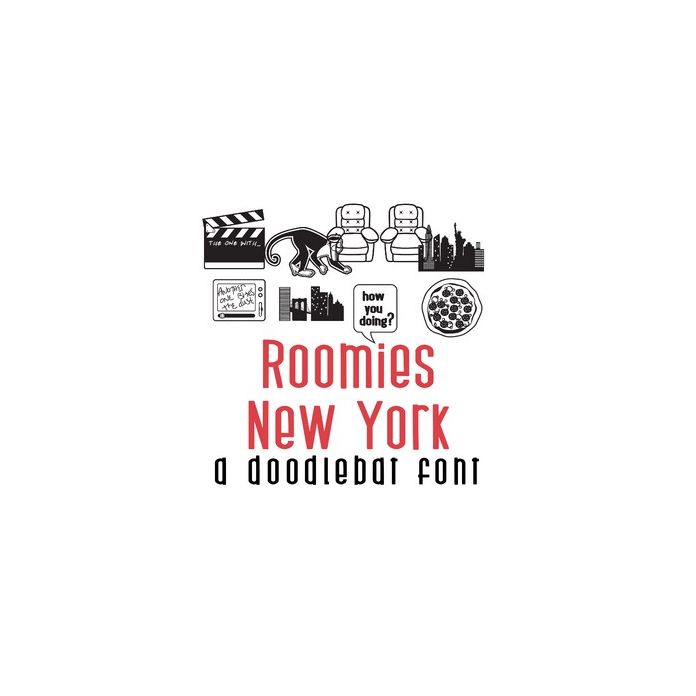
This fun doodlebat font features 26 additional images from your favorite cast of characters. Perfect for parties, gifts, crafts, decor, planner stickers, scrapbook pages and more!